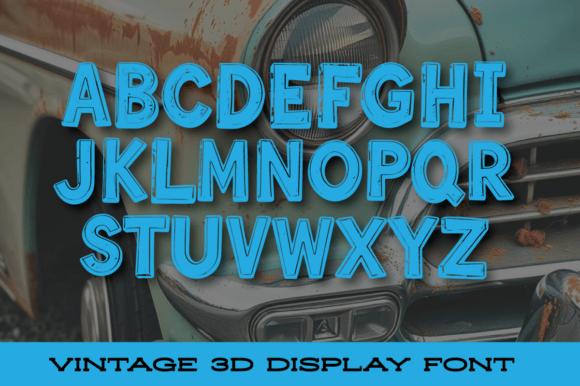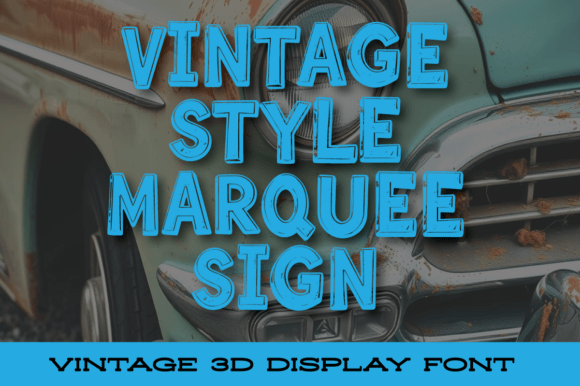
Introducing Emblematic Font: A Bold, Vintage 3D Style for Your Designs
Are you looking for a font that can add a touch of nostalgia and elegance to your designs? Look no further than Emblematic, a bold, vintage 3D style font that’s perfect for headlines, posters, and any design that needs a classic yet striking touch. In this article, we’ll explore the unique features of Emblematic and how it can elevate your designs.
The Inspiration Behind Emblematic
Emblematic is a font that draws inspiration from old marquee signs, evoking a sense of nostalgia and retro charm. Each letter has a strong, geometric form with beveled edges, creating a sense of depth and shadow that gives the font a 3D appearance. The overall aesthetic combines a retro vibe with a touch of elegance, making it perfect for designers who want to add a classic touch to their designs.
Key Features of Emblematic
So, what makes Emblematic stand out from other fonts? Here are some of its key features:
- Bold and Blocky Letters: Emblematic features bold and blocky letters that are perfect for display purposes. The font is designed to catch the eye with its high-contrast look, making it perfect for headlines and posters.
- Vintage Influence: The font has a vintage influence, with slightly worn textures and subtle distress marks that give it a sense of age and nostalgia.
- Beveled Edges: Each letter has beveled edges, creating a sense of depth and shadow that adds to the font’s 3D appearance.
- Elegant and Retro: Emblematic combines a retro vibe with a touch of elegance, making it perfect for designers who want to add a classic touch to their designs.
Using Emblematic in Your Designs
Emblematic is a versatile font that can be used in a variety of design projects. Here are some ideas for using Emblematic:
- Headlines and Posters: Emblematic is perfect for headlines and posters, where its bold and blocky letters can make a big impact.
- Branding and Logo Design: The font’s vintage influence and elegant aesthetic make it a great choice for branding and logo design.
- Signage and Advertising: Emblematic’s retro charm and 3D appearance make it perfect for signage and advertising design.
Tips for Getting the Most Out of Emblematic
Here are some tips for getting the most out of Emblematic:
- Use it for Display Purposes: Emblematic is designed for display purposes, so use it for headlines, posters, and other designs where you want to make a big impact.
- Experiment with Colors and Textures: The font’s vintage influence and elegant aesthetic make it a great choice for experimenting with different colors and textures.
- Pair it with Other Fonts: Emblematic can be paired with other fonts to create a unique and interesting design.
Emblematic is a bold, vintage 3D style font that’s perfect for designers who want to add a touch of nostalgia and elegance to their designs. With its strong, geometric letters and beveled edges, Emblematic is a great choice for headlines, posters, and any design that needs a classic yet striking touch. Whether you’re a designer, crafter, or DIY enthusiast, Emblematic is a font that’s sure to inspire your creativity.